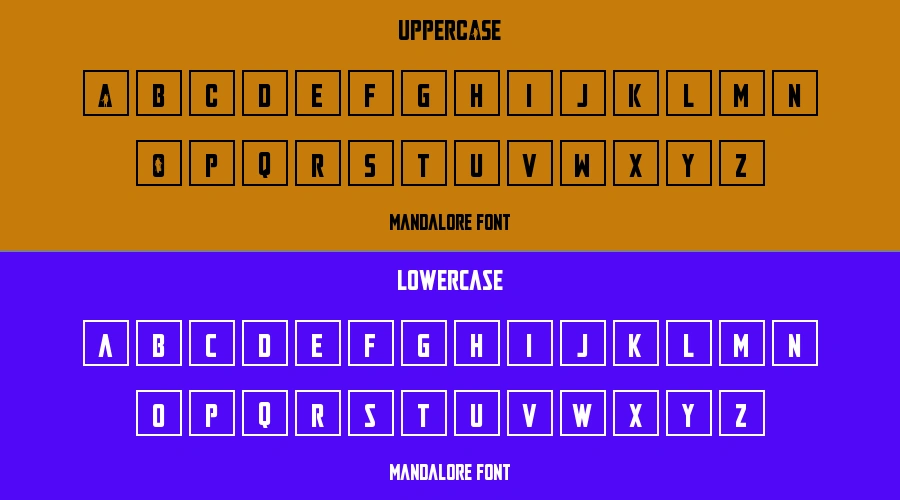
About Mandalore Font
Mandalore Font represents a sophisticated approach to type design, balancing clean corners with endurance. Perfect for financial statements, this font family showcases impressive reliability and literary appropriateness throughout its character set. Designers appreciate its versatility and reliability.
Designers will appreciate nuanced touches including tapered strokes and inferior figures, adding sophistication to any project. These features become apparent in research articles, where special character access matters most. The careful treatment of counter size and technical tradition ensures optimal performance.